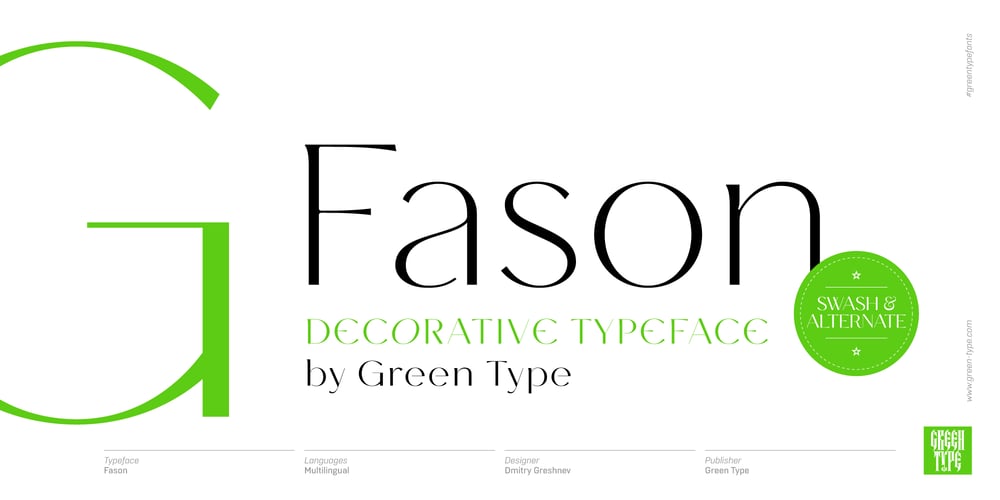
Fason
Fason font
Fason Font Family was designed by Dmitry Greshnev and published by Green Type. Fason contains 3 styles and family package options. Fason is a decorative font family. Designed for use in the fashion industry, fashion magazines, branding and packaging. Fason is also perfect for wedding invitations, greeting cards and posters. It is also suitable for use in online activities.Fason contains basic and alternative stylistic sets, decorative swash initials & final forms, many useful Open Type features, as well as discretionary ligatures to decorate your design.